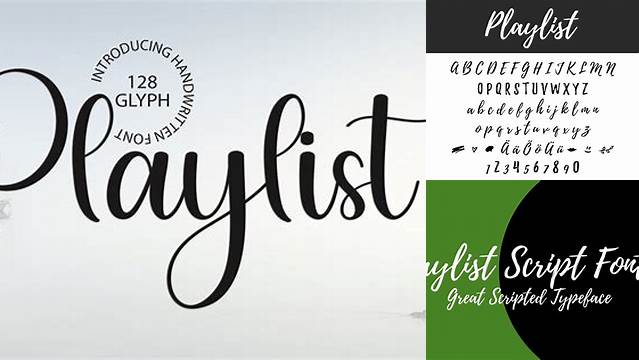
Hey guys! Are you on the hunt for that perfect script font to add a touch of elegance and personality to your designs? Look no further! In this comprehensive guide, we'll dive deep into the world of playlist script fonts, focusing on how you can snag some awesome free downloads. We'll explore what makes this font style so unique, where to find the best free options, and even how to use them effectively in your projects. So, whether you're a seasoned designer or just starting out, get ready to level up your typography game! Finding the right font is crucial for any design project, and playlist script fonts can be a fantastic choice for adding a personal and stylish touch. These fonts are known for their flowing, handwritten aesthetic, which makes them ideal for invitations, logos, branding materials, and more. The beauty of a script font lies in its ability to mimic natural handwriting, giving your text a human touch that can be both inviting and sophisticated. This introduction aims to set the stage for a thorough exploration of playlist script fonts, emphasizing their unique appeal and versatility in design. We’ll delve into the specifics of what makes this font style stand out, providing clear examples of its applications across different projects. By understanding the nuances of playlist script fonts, designers can make informed decisions about when and how to use them to achieve the desired effect. This section will also touch on the importance of considering font licensing when downloading free fonts, ensuring that users are aware of the terms and conditions associated with each font. By addressing these crucial aspects, we aim to equip you with the knowledge needed to confidently incorporate playlist script fonts into your creative toolkit. The goal is to provide a comprehensive overview that caters to both beginners and experienced designers, offering valuable insights into the world of typography and its impact on visual communication. So, let's jump right in and discover the endless possibilities that playlist script fonts have to offer!
What Makes Playlist Script Fonts Special?
So, what's the big deal about playlist script fonts? Well, these fonts have a special charm that sets them apart from the rest. They're all about flow and connection, mimicking the look of real handwriting. Think elegant curves, seamless strokes, and a touch of personality. Unlike blocky or overly structured fonts, playlist scripts bring a human element to your text, making it feel more personal and inviting. This section will delve deeper into the characteristics that make playlist script fonts special, highlighting their unique attributes and the impact they can have on design projects. One of the key features of playlist script fonts is their ability to evoke a sense of authenticity and warmth. The flowing, interconnected strokes create a natural rhythm that is pleasing to the eye, making the text feel handcrafted and personal. This is particularly important in branding and logo design, where creating an emotional connection with the audience is crucial. By using a playlist script font, designers can convey a sense of care and attention to detail, which can significantly enhance the brand's perception. Furthermore, the versatility of playlist script fonts allows them to be used in a wide range of applications, from formal invitations and wedding stationery to casual blog headers and social media graphics. The key is to choose the right script for the context, as some scripts are more formal and elegant, while others have a more playful and whimsical feel. Understanding these nuances is essential for effectively incorporating script fonts into your designs. We will also explore the technical aspects of playlist script fonts, such as their varying weights, styles, and the presence of alternates and ligatures. These elements contribute to the overall flexibility of the font, allowing designers to customize the text to fit their specific needs. By understanding the full potential of these features, you can create truly unique and impactful designs that stand out from the crowd. So, let's continue to explore the magic of playlist script fonts and discover how they can transform your projects from ordinary to extraordinary.
Key Characteristics of Script Fonts
Script fonts are characterized by their cursive, flowing strokes that imitate handwriting. These fonts often include:
• Ligatures: Special characters that connect letters seamlessly.
• Swashes: Decorative strokes extending from letters.
• Varying Stroke Weights: Lines that change thickness, adding visual interest.
Why Choose a Playlist Script Font?
Playlist script fonts are particularly popular because they offer a balance between elegance and readability. They're not as formal as some serif fonts but still exude sophistication. This makes them ideal for a variety of projects, including:
• Logos and branding
• Invitations and cards
• Website headers
• Social media graphics
• T-shirt designs
The ability to connect emotionally with the audience is a significant advantage of using script fonts. The handwritten feel conveys a sense of authenticity and warmth, which can be particularly effective in branding and marketing materials. For example, a logo that uses a playlist script font can communicate a sense of care and personal touch, making the brand feel more approachable and trustworthy. In the context of invitations and cards, script fonts add a touch of elegance and sophistication, making the occasion feel special and memorable. Whether it’s a wedding invitation, a birthday card, or a thank-you note, the use of a script font can elevate the design and convey a sense of thoughtfulness. Furthermore, the visual appeal of playlist script fonts makes them a great choice for website headers and social media graphics. The flowing lines and elegant curves can capture the viewer's attention and create a lasting impression. When used strategically, script fonts can enhance the overall aesthetic of a website or social media profile, making it more engaging and visually appealing. The adaptability of playlist script fonts extends to various design applications, including t-shirt designs and merchandise. A well-chosen script font can add a stylish and personalized touch to apparel, making it stand out from generic designs. Overall, the unique characteristics and versatility of playlist script fonts make them a valuable asset for designers looking to create visually appealing and emotionally resonant designs. By understanding the nuances of script typography, you can effectively leverage these fonts to enhance your creative projects and achieve your desired aesthetic.
Where to Find Free Playlist Script Fonts
• Commercial Use: You can use the font for projects that generate revenue, like logos or websites for clients.
• Open Source: The most permissive license, allowing you to use, modify, and distribute the font.
It’s essential to understand the terms of the font license to avoid any potential legal issues. Using a font in a way that violates its license can lead to copyright infringement, which can have serious consequences. Therefore, it’s always better to err on the side of caution and ensure that you have the necessary permissions before using a font in your projects. When reviewing a font license, pay close attention to the specific terms and conditions outlined by the designer. Some licenses may allow commercial use but restrict the modification or redistribution of the font. Others may require you to give credit to the designer when using the font in your work. By carefully reading and understanding the license agreement, you can protect yourself from any legal complications and ensure that you are using the font ethically and responsibly. In addition to checking the license, it’s also a good idea to keep a record of the fonts you have downloaded and their respective licenses. This will make it easier to track your font usage and ensure that you are always in compliance with the terms. By following these guidelines, you can confidently explore the world of free fonts and incorporate them into your designs without any worries. The next section will delve into how to effectively use playlist script fonts in your projects, providing practical tips and advice for achieving stunning results.
How to Use Playlist Script Fonts Effectively
So, you've got your free playlist script font – awesome! But now what? It's not enough to just download the font; you need to know how to use it effectively. Script fonts are beautiful, but they can also be tricky. Overusing them or using them in the wrong context can make your design look cluttered or unprofessional. This section will provide practical tips and guidelines for using playlist script fonts effectively, ensuring that your designs are both stylish and readable. One of the most important things to consider when using script fonts is legibility. While script fonts are known for their elegant curves and flowing lines, they can sometimes be difficult to read, especially in smaller sizes or when used for large blocks of text. Therefore, it’s crucial to use script fonts sparingly and strategically. A good rule of thumb is to use script fonts for headings, logos, or short phrases, rather than for body text. When using script fonts for headings, make sure the text is large enough to be easily readable. Avoid using overly ornate or decorative script fonts for critical information, as they can be challenging to decipher at a glance. Instead, opt for cleaner and more legible script styles that maintain a sense of elegance without sacrificing readability. In addition to size, the spacing between letters and lines can also impact the legibility of script fonts. Adjusting the kerning and leading can help improve the overall readability of the text, making it easier for the audience to engage with your message. It's also important to consider the context in which you are using the script font. Script fonts are often associated with elegance, romance, and sophistication, making them a great choice for wedding invitations, branding materials for luxury products, and other projects that require a touch of class. However, they may not be the best choice for more casual or informal designs. Choosing the right font for the context is essential for conveying the right message and creating the desired aesthetic. This section will continue to provide practical advice and examples of how to use playlist script fonts effectively in various design projects. By following these guidelines, you can master the art of using script typography and elevate your designs to the next level.
Best Practices for Using Script Fonts
• Use Sparingly: Don't overuse script fonts. They're best for headings, logos, or short phrases.
Alright guys, we've covered a lot about playlist script fonts! From what makes them special to where to find free downloads and how to use them effectively, you're now equipped to add some serious flair to your designs. Remember, the key is to use these fonts thoughtfully and strategically. They're a powerful tool, but like any tool, they work best when used correctly. So go ahead, explore the world of script fonts, and let your creativity flow! In conclusion, playlist script fonts offer a unique and versatile way to enhance your design projects. Their flowing, handwritten aesthetic can add a personal touch, while their elegance and sophistication can elevate the overall look and feel of your work. By understanding the characteristics of script fonts, exploring the resources for free downloads, and mastering the art of font pairing, you can effectively incorporate these fonts into your creative toolkit. Remember to always check the font license before using a free font, and follow the best practices for legibility and context. By using script fonts sparingly and strategically, you can create visually stunning designs that capture the attention of your audience and convey your message with clarity and style. As you continue to explore the world of typography, don't be afraid to experiment with different script styles and combinations. The more you practice, the better you'll become at using these fonts effectively. Whether you're designing a logo, creating a wedding invitation, or crafting a social media graphic, playlist script fonts can help you achieve the desired aesthetic and make your projects stand out. So go ahead, download some free fonts, unleash your creativity, and let your designs shine! This guide has provided you with the knowledge and resources you need to get started, but the real magic happens when you put these principles into practice. Embrace the challenge, explore the possibilities, and have fun creating beautiful and impactful designs with playlist script fonts. The world of typography is vast and exciting, and there's always something new to learn. By staying curious and continuing to hone your skills, you can become a master of typography and create designs that truly make a difference. So, keep exploring, keep experimenting, and keep creating!